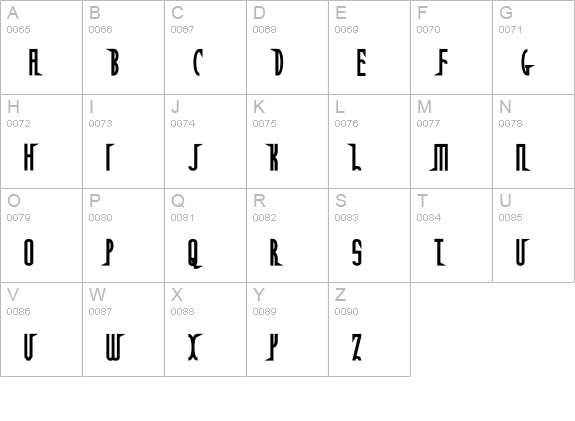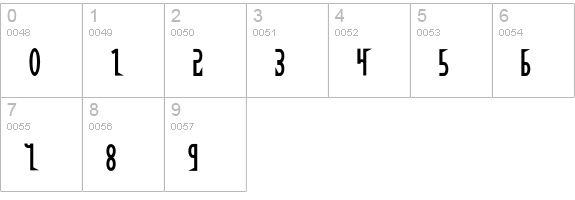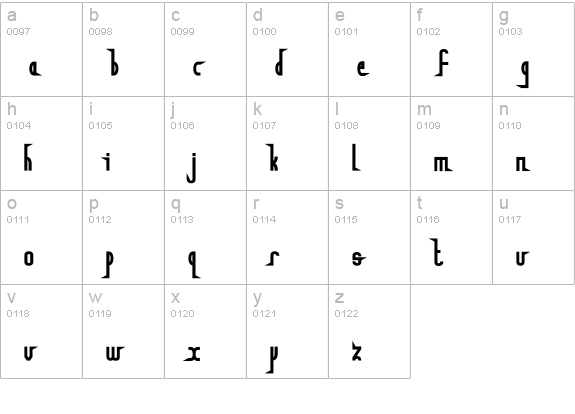
StelefontBevel Font Details
StelefontBevel is a sophisticated and elegant display font that exudes a sense of timeless charm and classic beauty. Its intricate beveled edges and sharp lines give it a unique and distinctive look that is perfect for adding a touch of sophistication to any design project. Whether you are creating a logo, poster, or branding materials, StelefontBevel is sure to make a bold statement. The best part? StelefontBevel is available for free download at FontsMarket.com, making it accessible to all designers and creatives looking to elevate their work with a touch of elegance. Don't miss out on the opportunity to enhance your designs with this stunning font - download StelefontBevel today and unleash your creativity!